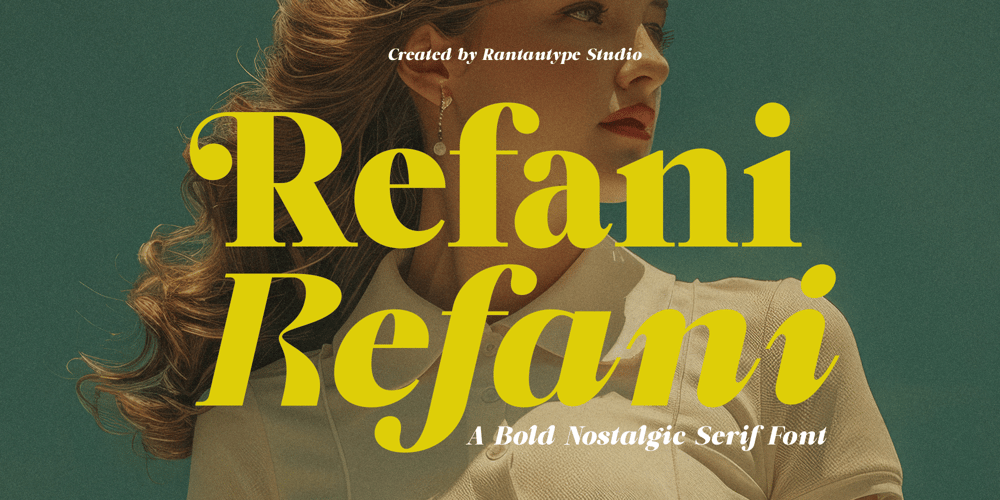
Refani
Refani font
Refani Font Family was designed by Yudi Pratama Chandra and published by RantauType. Refani contains 2 styles and family package options. Refani is a elegance eighties magazine inspired serif with complementary italic version. Refani bring bold shape that embraces strong, luxorious and grace, both come in two versions one with more contrast and crisper than the other. In true Eighties style, combination the reguler and italic make nostlagic but elegant, mix and match them to create creative design project. With its versatility and contemporary appeal.Refani is a beautiful choice for any creative endeavor, creating elegant, modern, chic, lifestyle design such as logos, title, cover, branding, invitations, wedding designs, display and magazine, social media posts, advertisements, printed quotes, product packaging, corporate brand, product designs, labels, photography, watermarks, special events and any other project with nostalgic or elegant touch.What you have: Standart Glyphs Numberial and Functional Ligature and alternate Works on PC & Mac Simple installations Accessible in Adobe Illustrator, Adobe Photoshop, Adobe InDesign, even work on Microsoft Word. Fonts include multilingual support for: Afrikaans, Albanian, Basque, Bemba, Bena, Breton, Catalan, Chiga, Cornish, Danish, Dutch, English, Estonian, Filipino, Finnish, French, Galician, German, Icelandic, Indonesian, Irish, Italian, Kinyarwanda, Luxembourgish, North, Norwegian, Portuguese, Romansh, Rombo, Rundi, Scottish, Gaelic, Sena, Shambala, Shona, Soga, Somali, Spanish, Swahili, Swedish, Swiss, German.Thank you for your purchase!Hope you enjoy with our font!